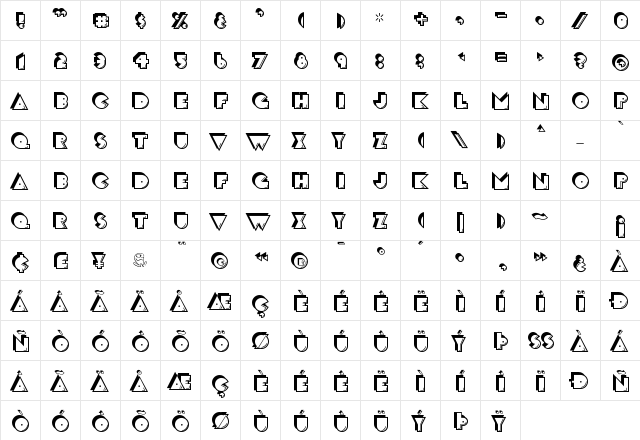
Crack Man Regular Font Preview
Crack Man Regular
Crack Man Regular Font Details
Design Context for Crack Man Typeface
Crack Man is a composed and adaptable typeface that performs quietly and consistently across a wide range of design contexts.